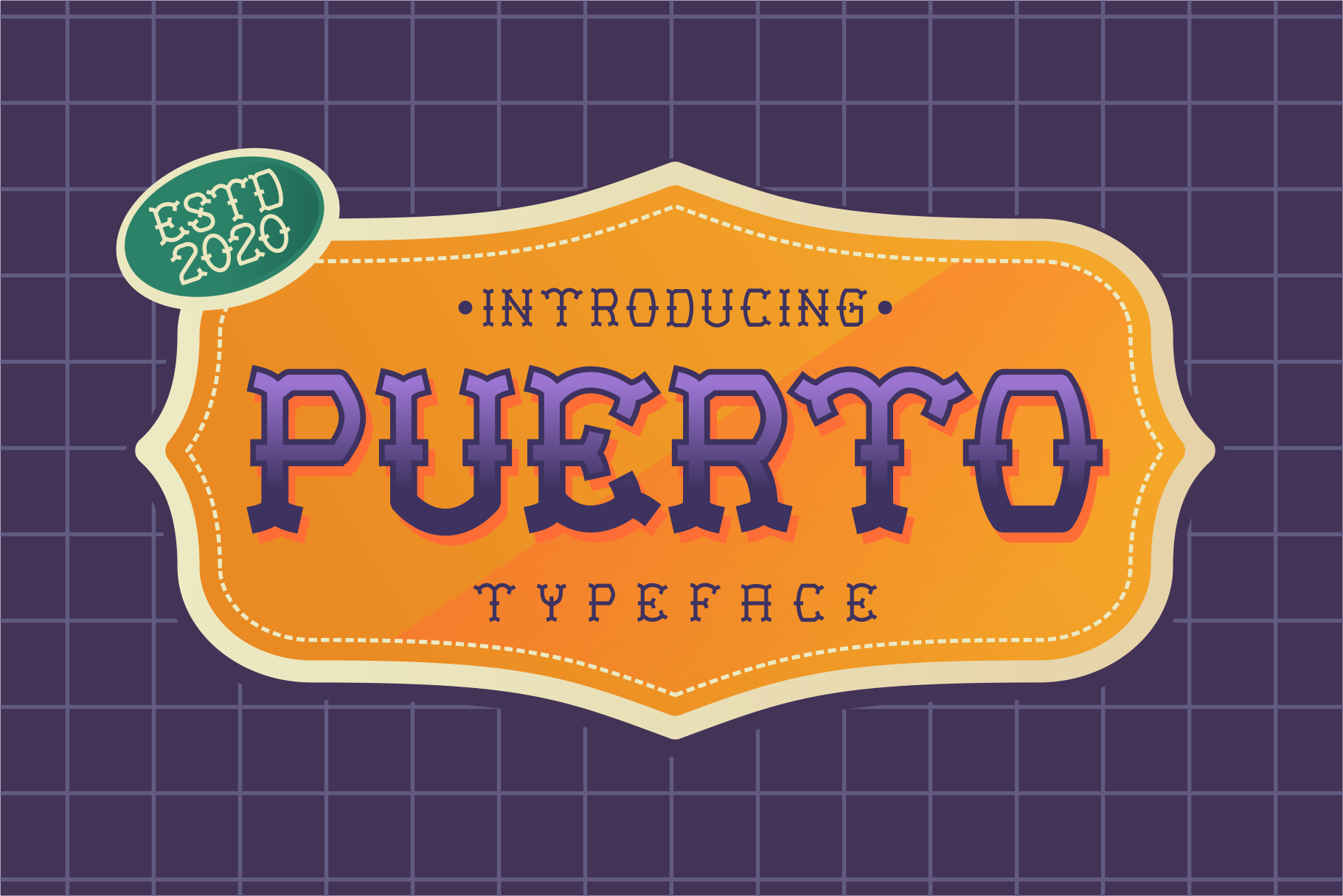
Puerto Playful Tattoo Font
Introducing new display font called "PUERTO" inspired by text on tattoo art. Great for branding, logos, posters, layers, brochures, advertisements, and more.